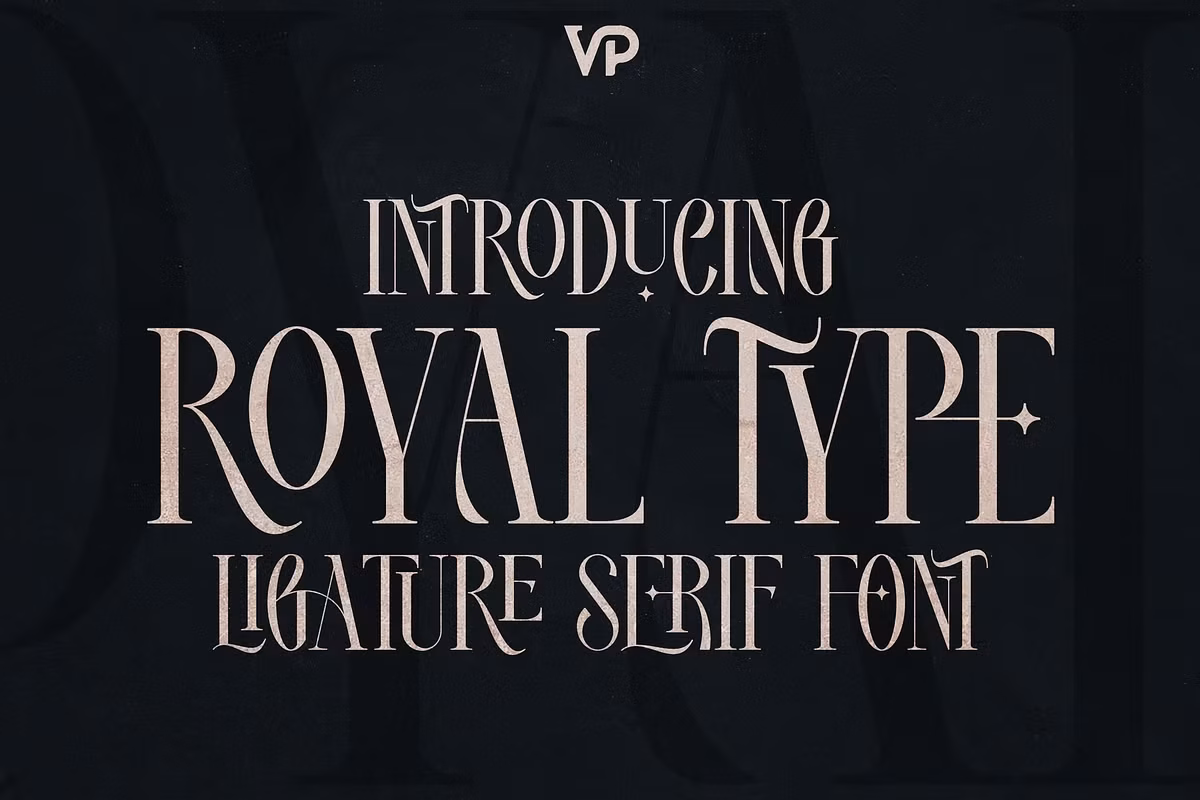
Royal Type - Ligature Serif Font Free Download is a luxurious and refined typeface that combines classic serif elegance with modern ligature flair. Designed to make an impression, this font is perfect for high-end branding, wedding stationery, editorial layouts, logos, and upscale product packaging.
With its stylish ligatures and graceful letterforms, Royal Type brings a sense of sophistication and artistry to your text. The font’s well-balanced proportions and attention to detail ensure that it remains both beautiful and highly readable across all formats.